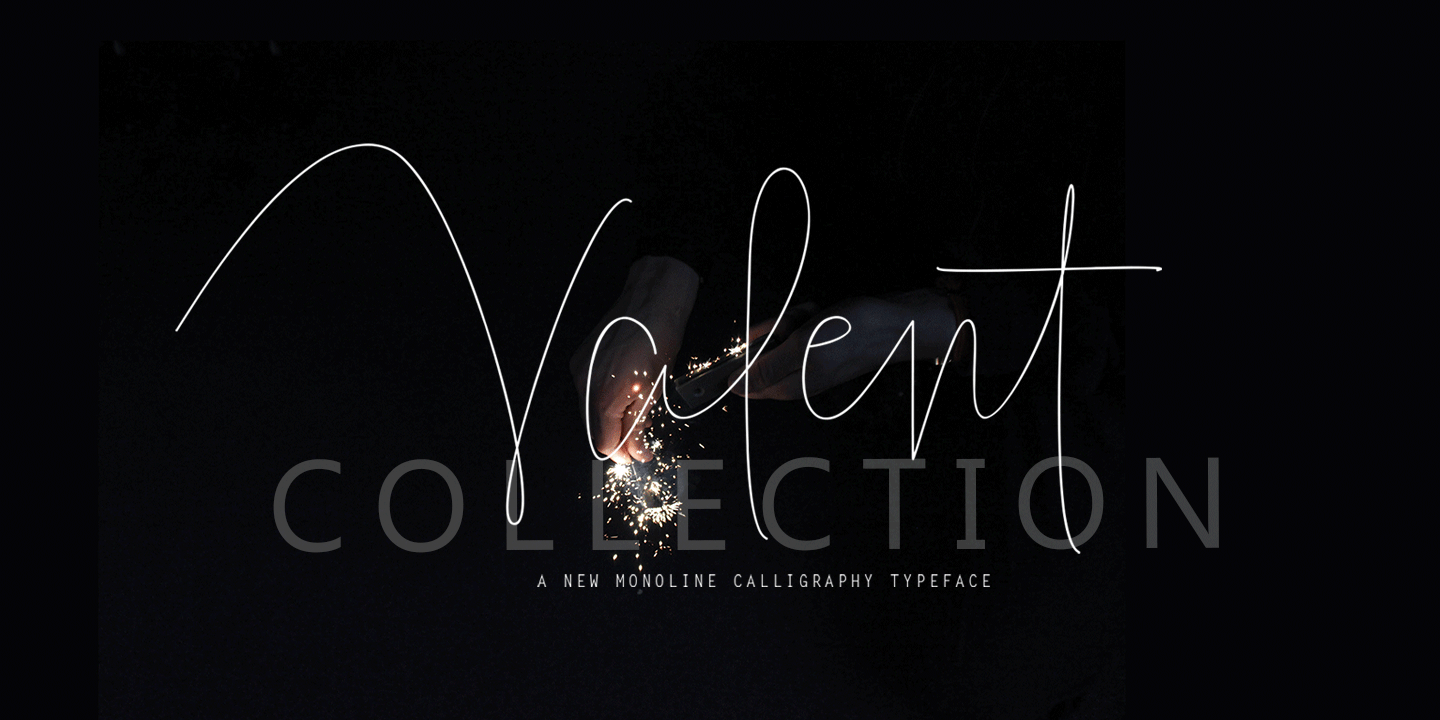
Valent Script
Designed by Rahmat Hidayat, Valent Script is a hand drawn and modern calligraphy font family published by RtCreative.
Valent, a work that is purely handwritten, has natural characteristics. It’s perfect for invitations, signatures, blogs, social media, business cards, product brands.
Valent is a simple font that has Stylistic standards, Stylistic Alternatives. and includes uppercase and lowercase letters, numbers and punctuation.